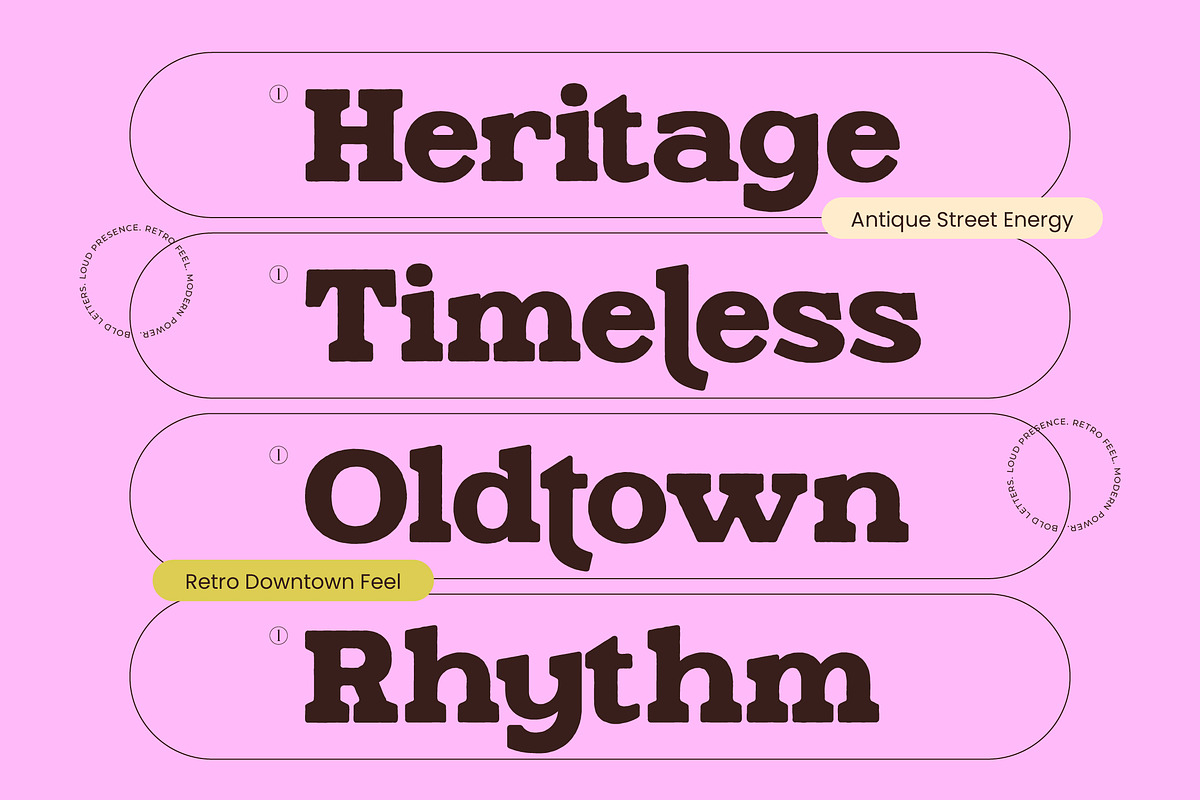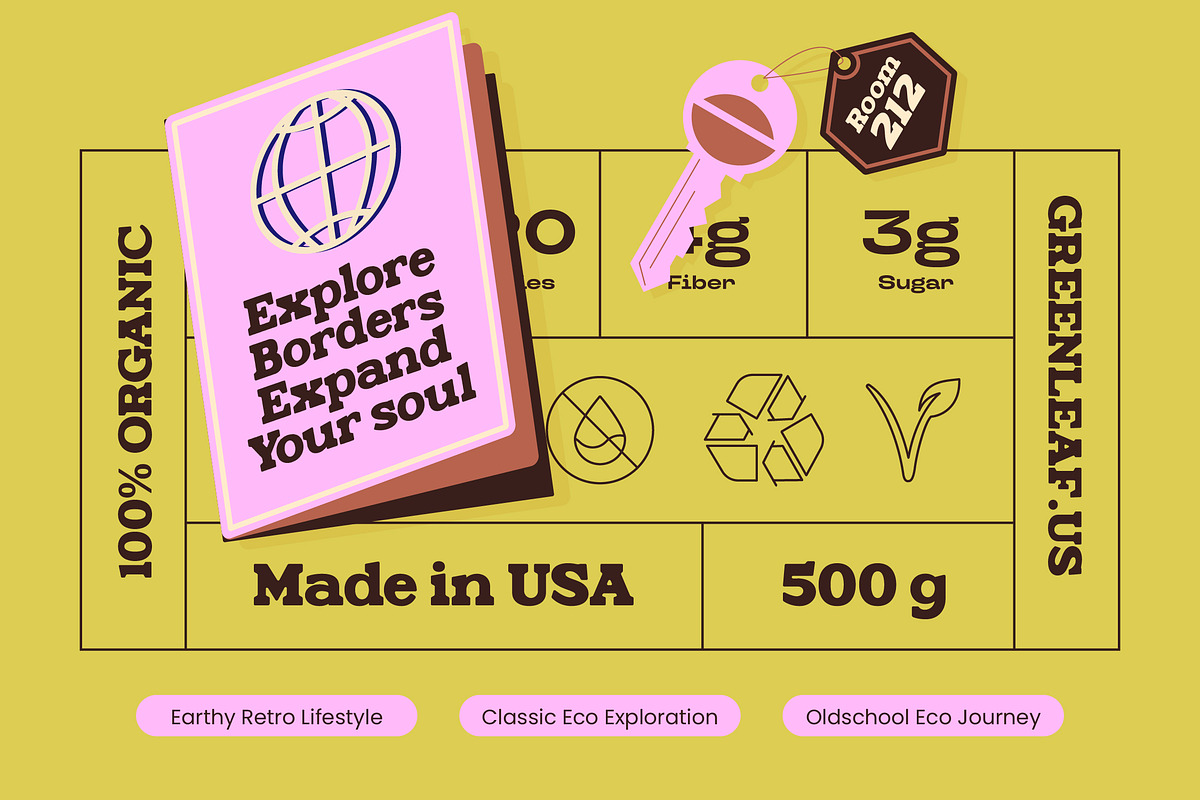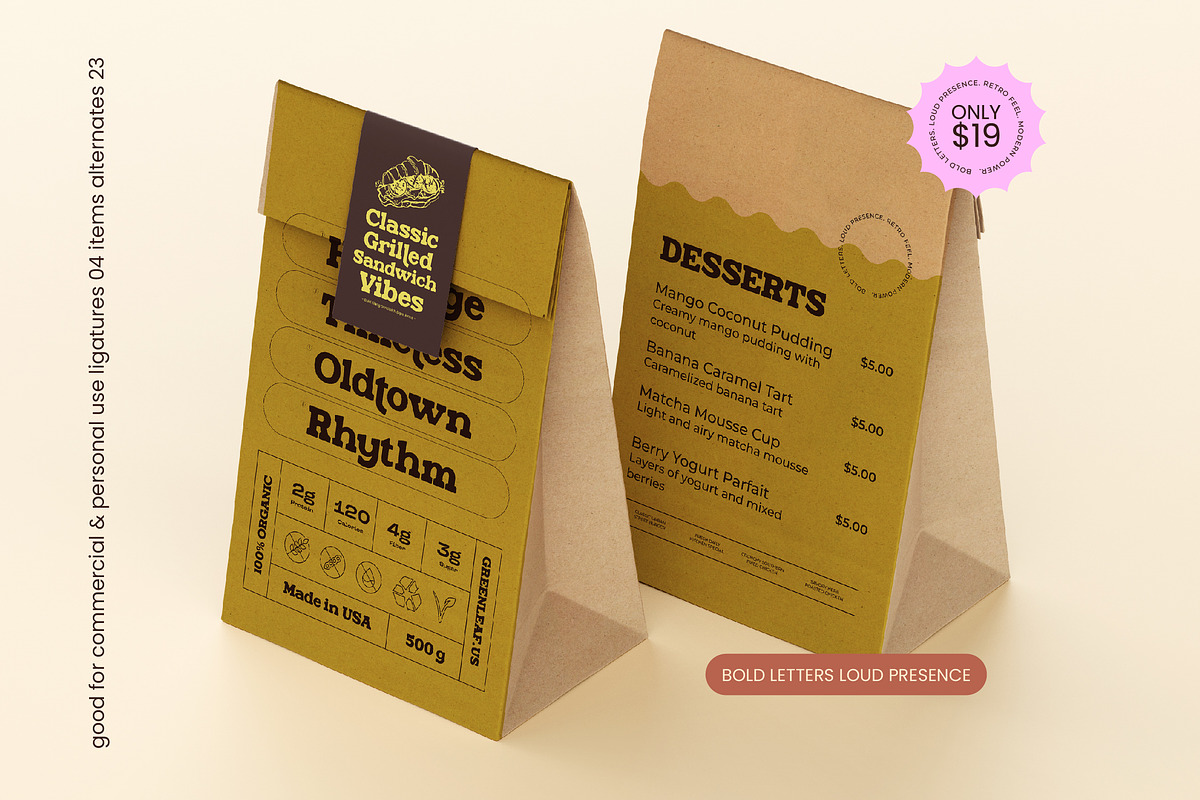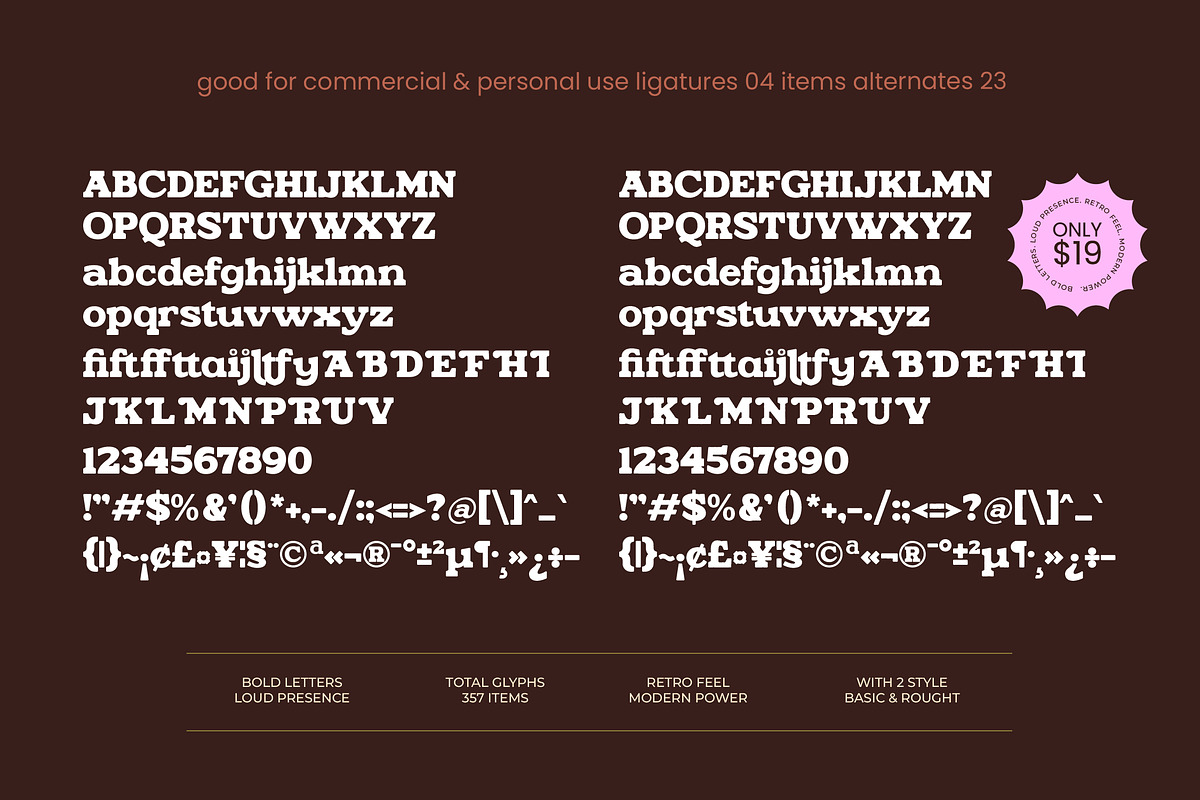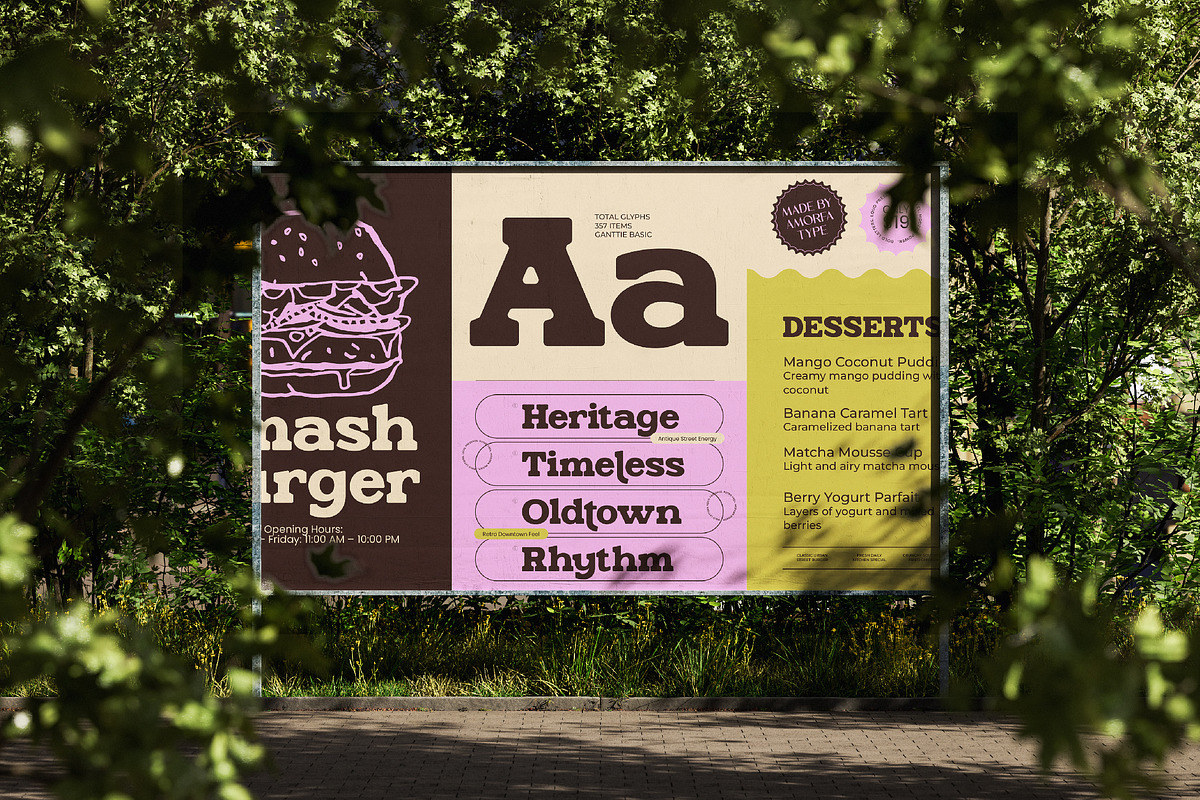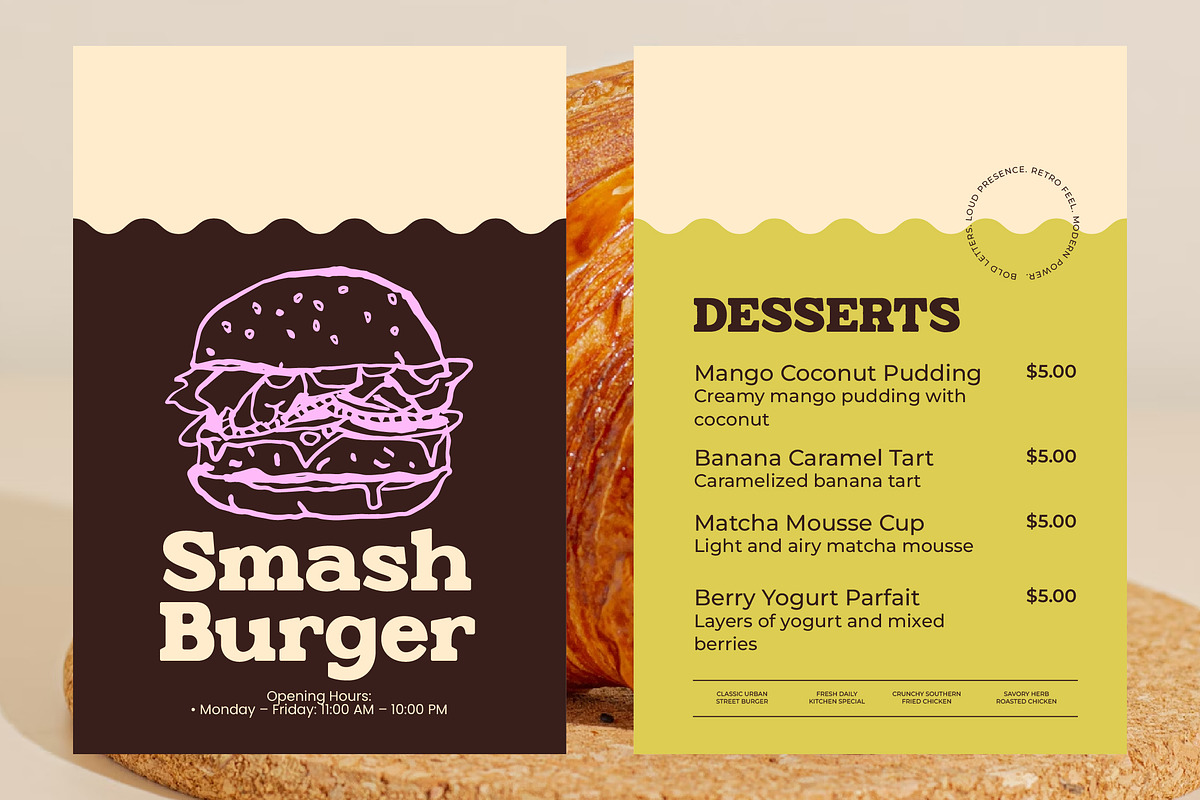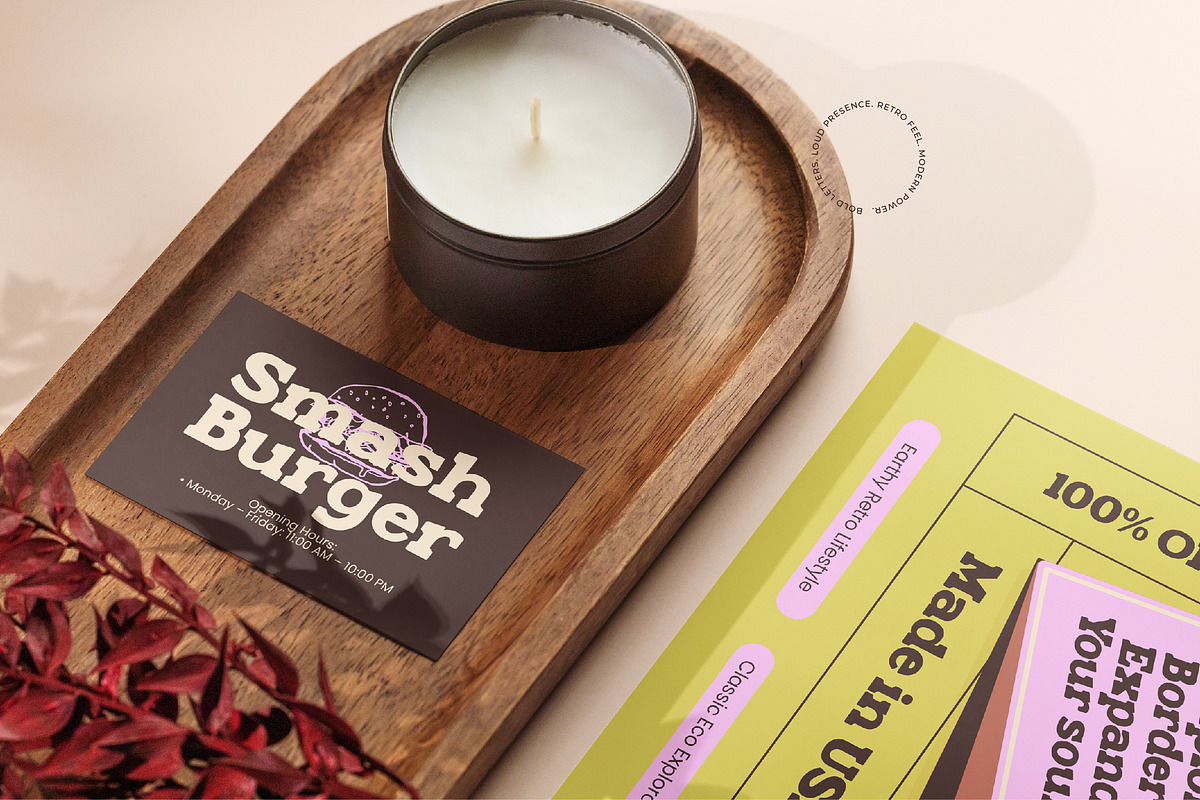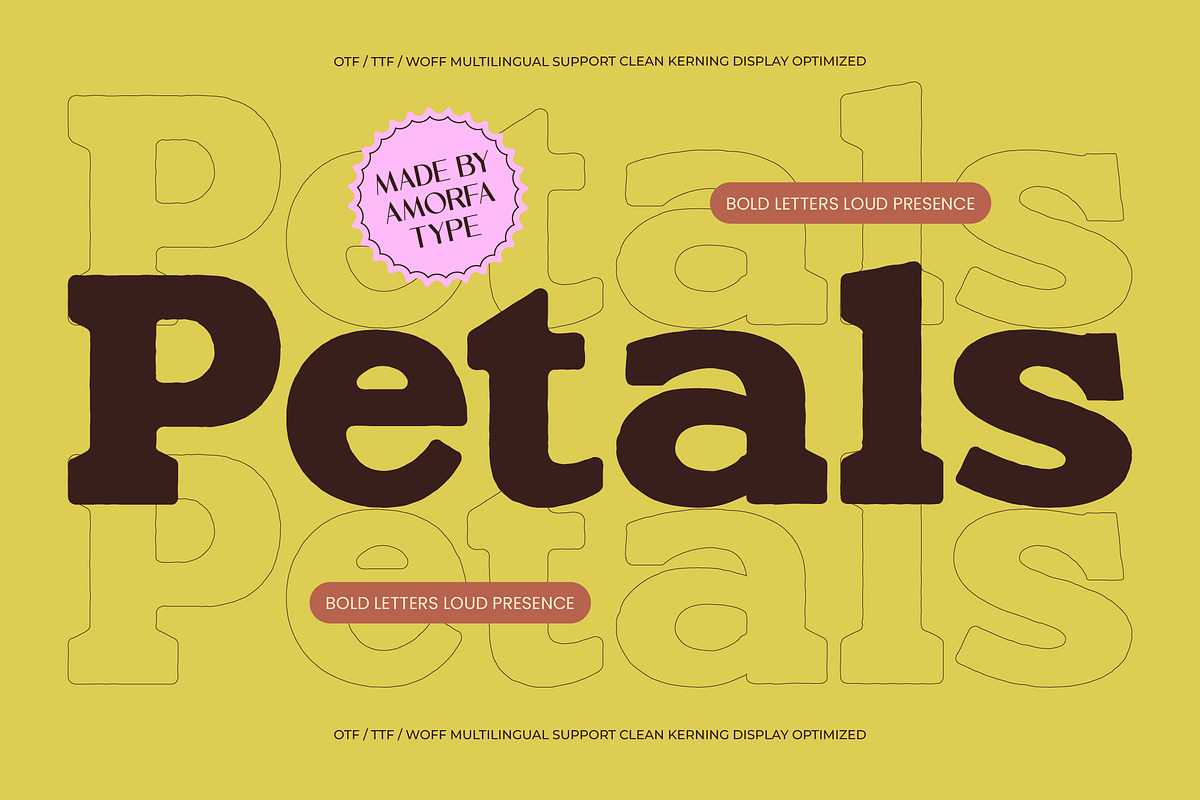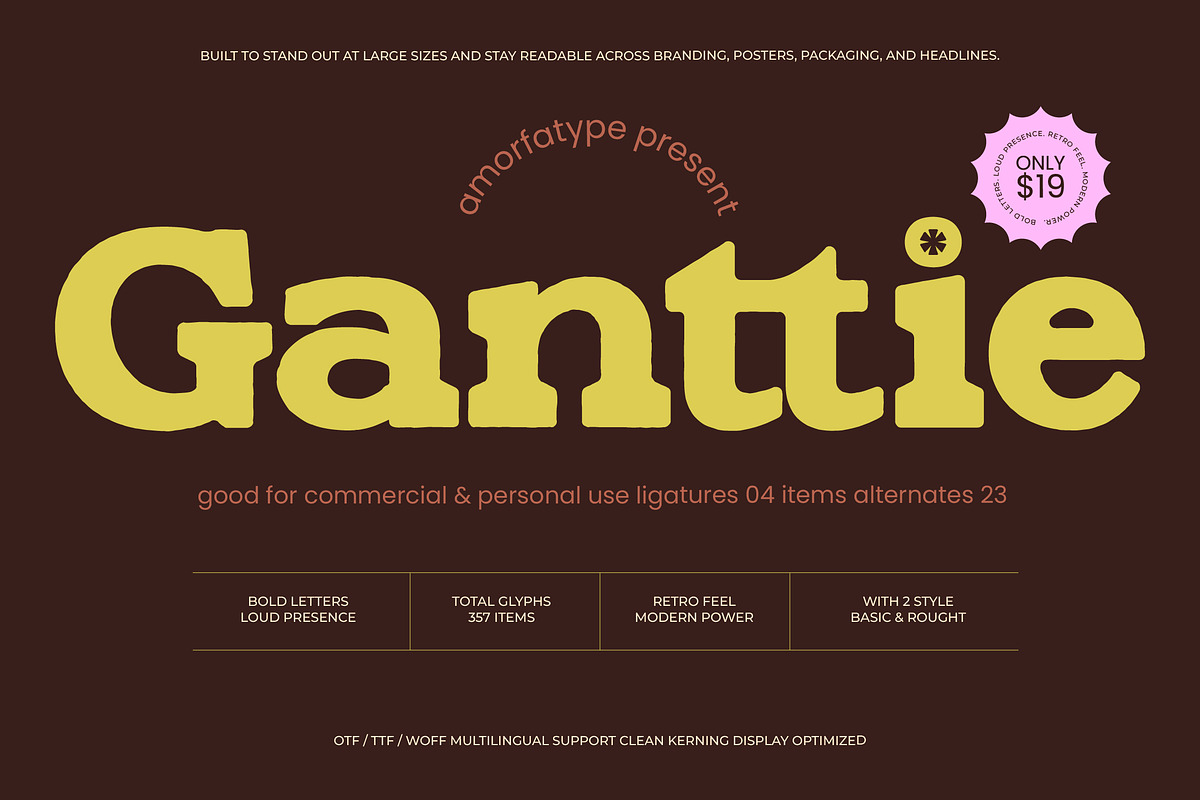
Ganttie Bold Display Serif
Ganttie is a bold display serif font built with strong character, confident weight, and expressive details. Designed to make an impact, Ganttie blends classic serif structure with a modern, slightly rugged attitude, making it ideal for branding, posters, packaging, editorial headlines, menus, and statement-driven designs.
Featuring two styles — Basic and Rough, Ganttie allows you to shift the mood of your design effortlessly. The Basic style delivers a clean, solid serif presence, while the Rough style adds texture and organic imperfection for a more raw, handcrafted feel. This combination makes Ganttie especially powerful for vintage-inspired visuals, food branding, retro concepts, and bold creative projects.
Bold Display & High-Impact Ready – Perfect for logos, headlines, posters, and packaging Two Style Variations – Clean Basic and textured Rough for flexible visual expression Strong Serif Character – Heavy strokes and clear letterforms for confident typography Optimized for Print & Digital – Maintains clarity and impact across all media
Ganttie is made for designers who want a bold serif font with personality—clean when needed, rough when desired, and always visually commanding.